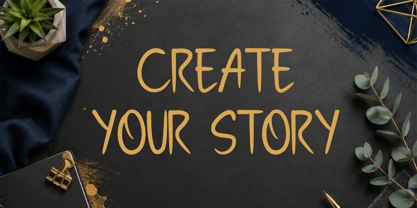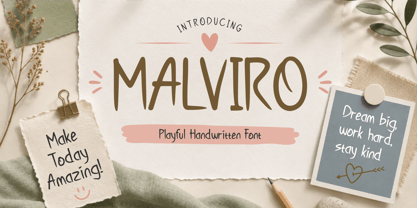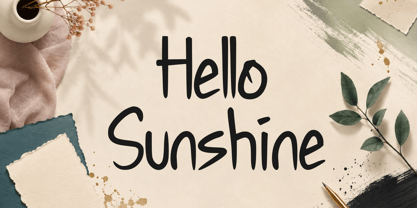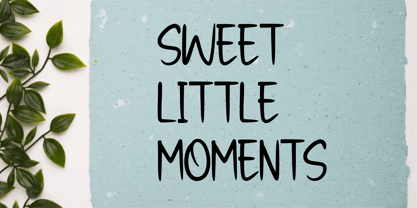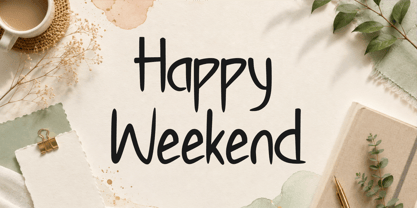
Malviro
Malviro – Playful Handwritten Font
Malviro is a playful handwritten font designed to bring a warm, cheerful, and personal touch to your creative projects. With its casual hand-drawn appearance, organic letterforms, and friendly character, Malviro feels natural, expressive, and full of personality.
Perfect for projects that need a fun and approachable aesthetic, Malviro works beautifully for branding, logos, greeting cards, invitations, posters, social media designs, packaging, children's products, stationery, quotes, and lifestyle projects.
Its distinctive handwritten style makes every word feel personal while remaining clear and easy to use across a variety of design applications. Whether you're creating a cute brand identity, an inspiring quote, a playful poster, or charming packaging, Malviro adds an authentic handmade feel to your work.
Malviro – Playful Handwritten Font is a great choice for designers looking for a friendly, creative, and versatile handwritten typeface that stands out without feeling overly formal.